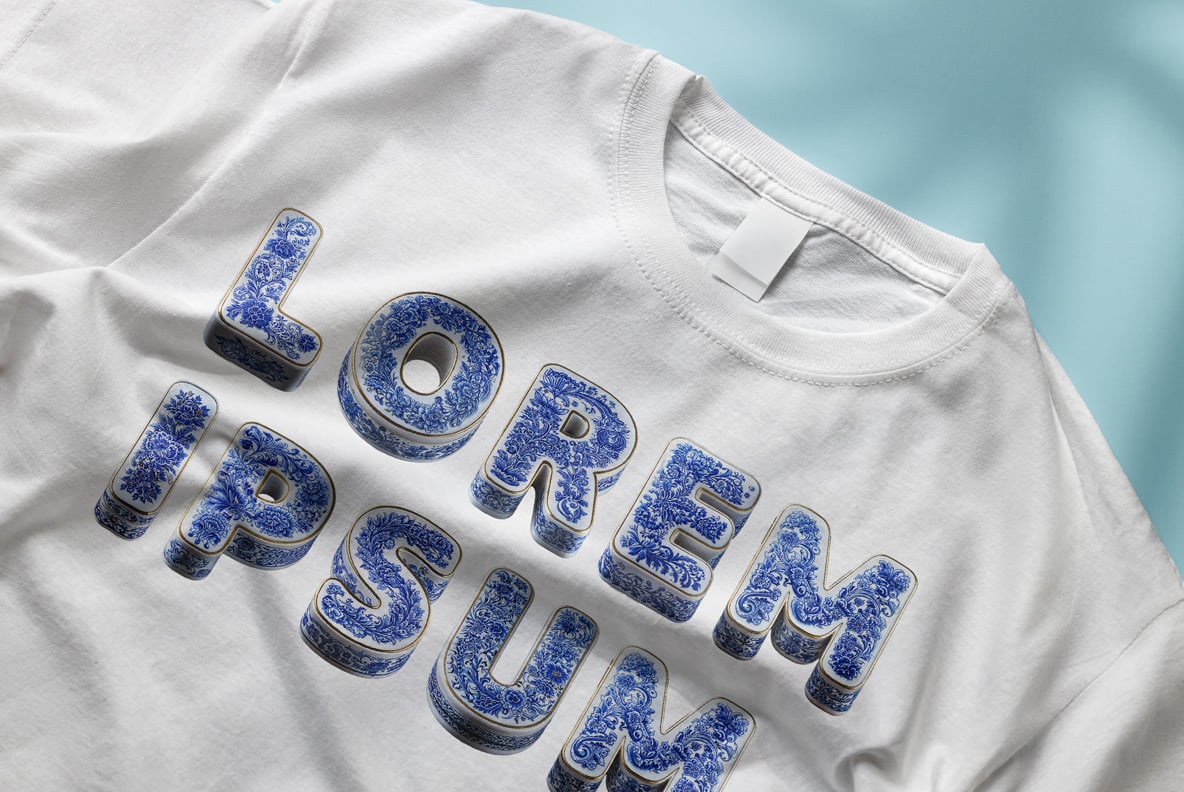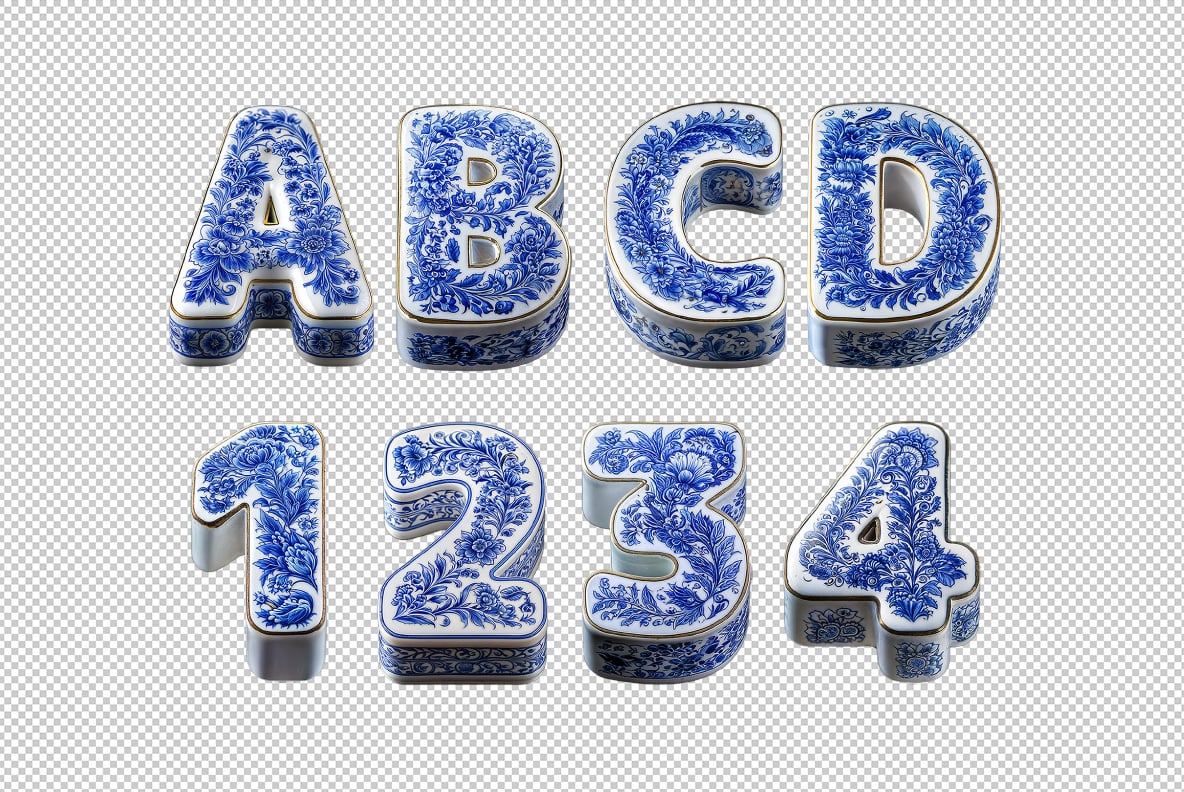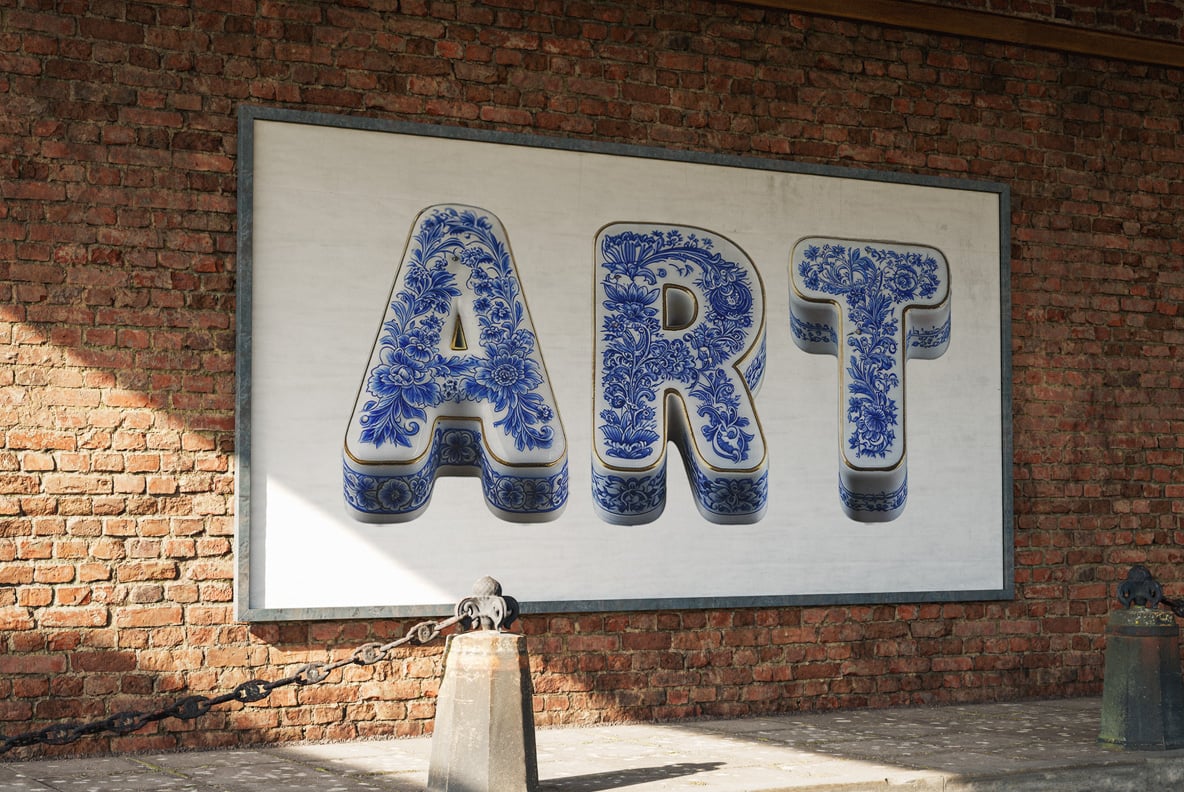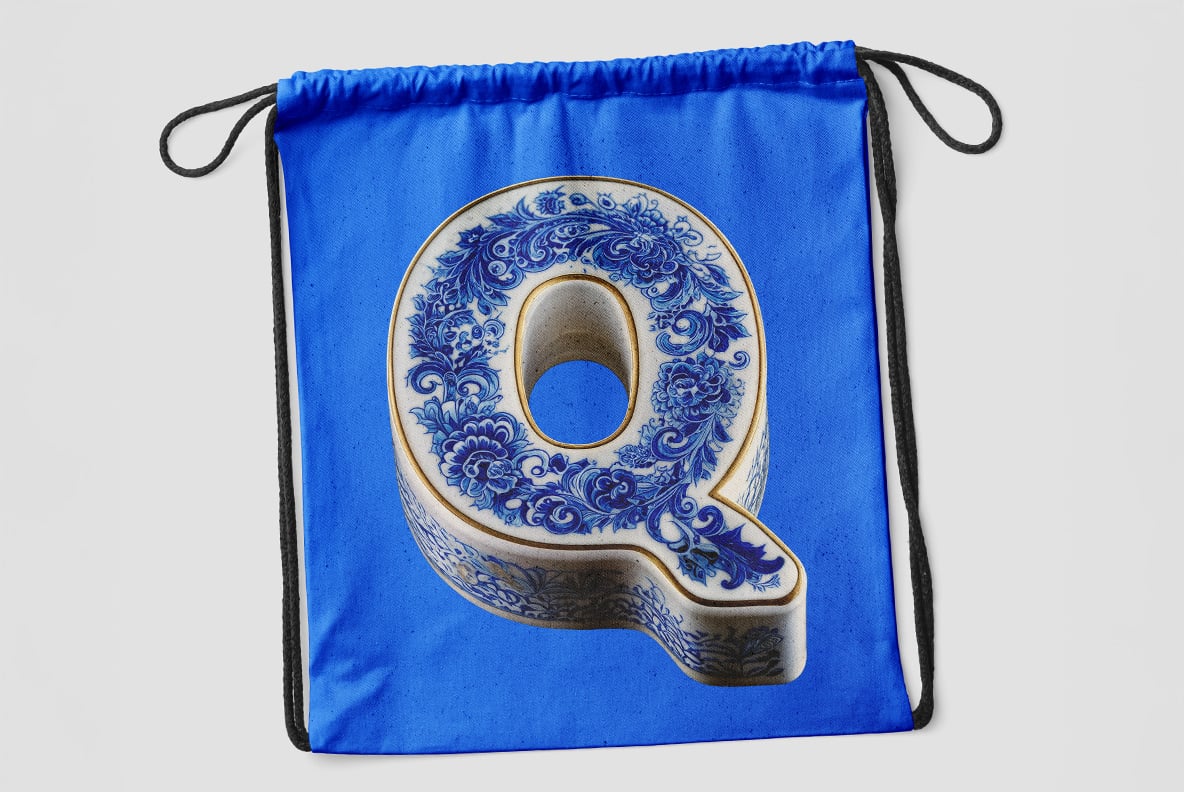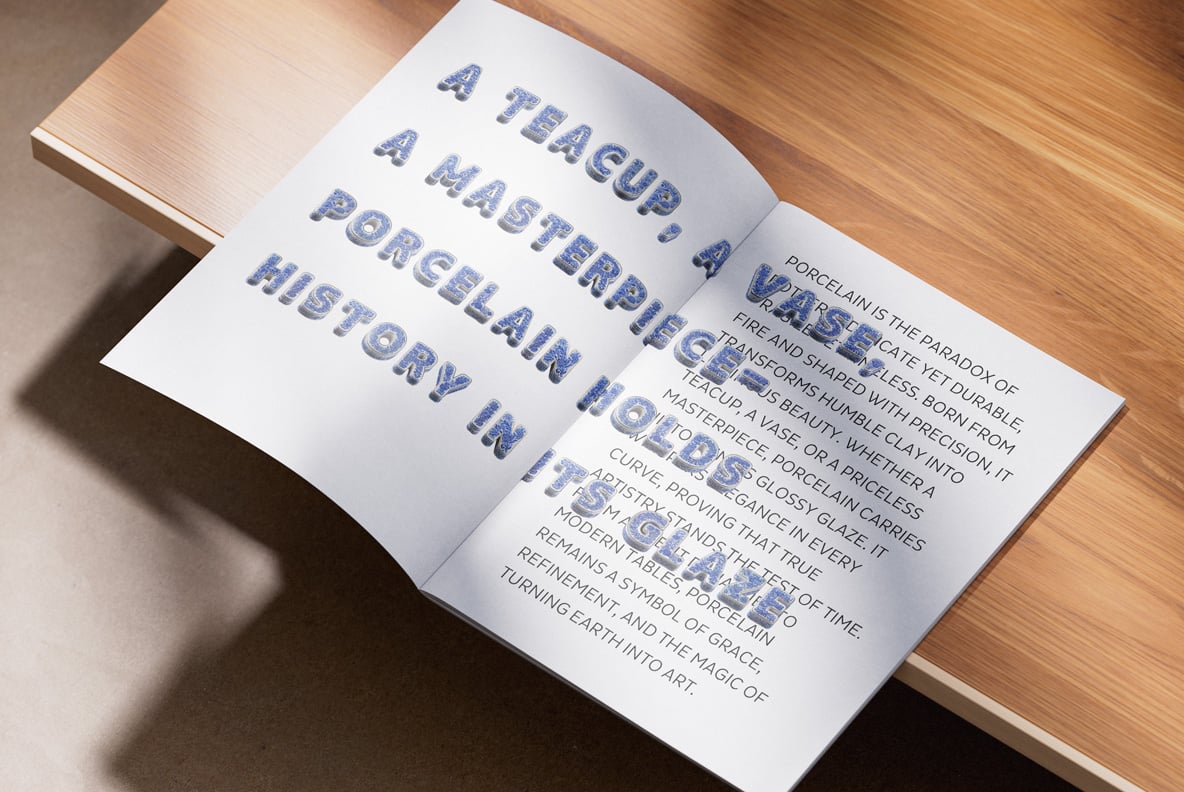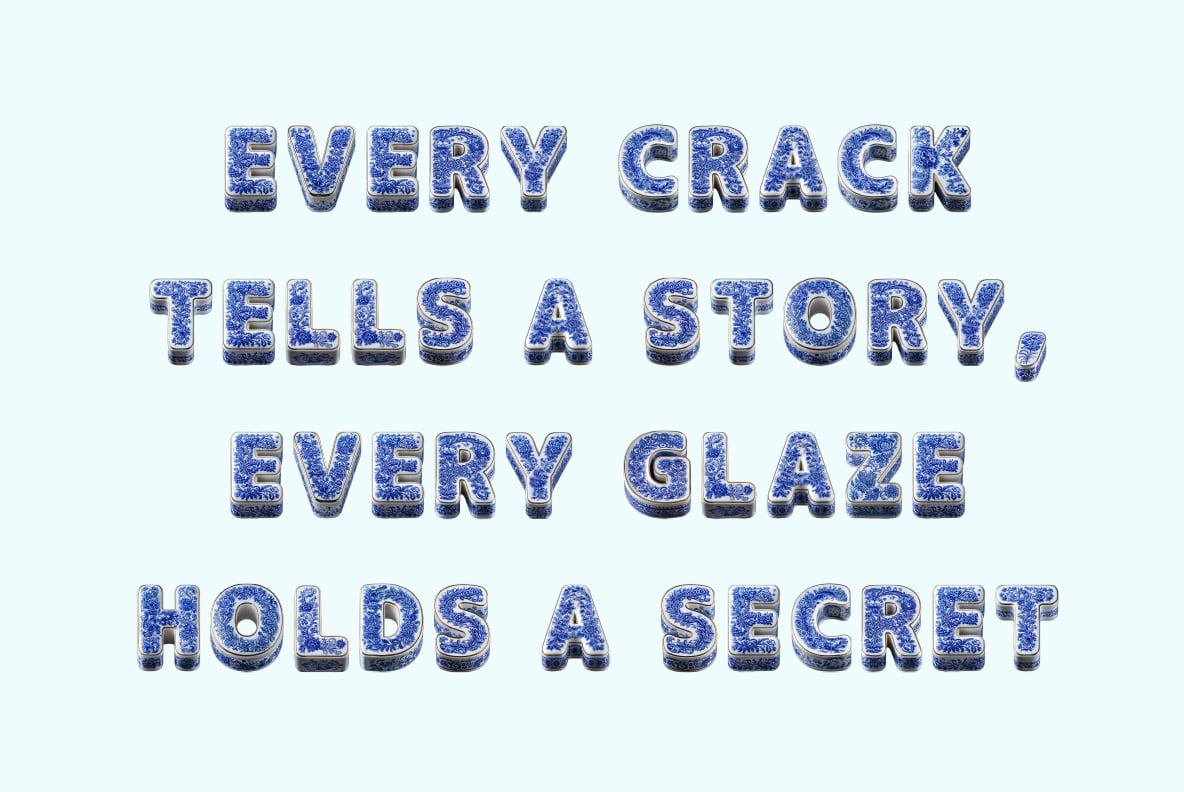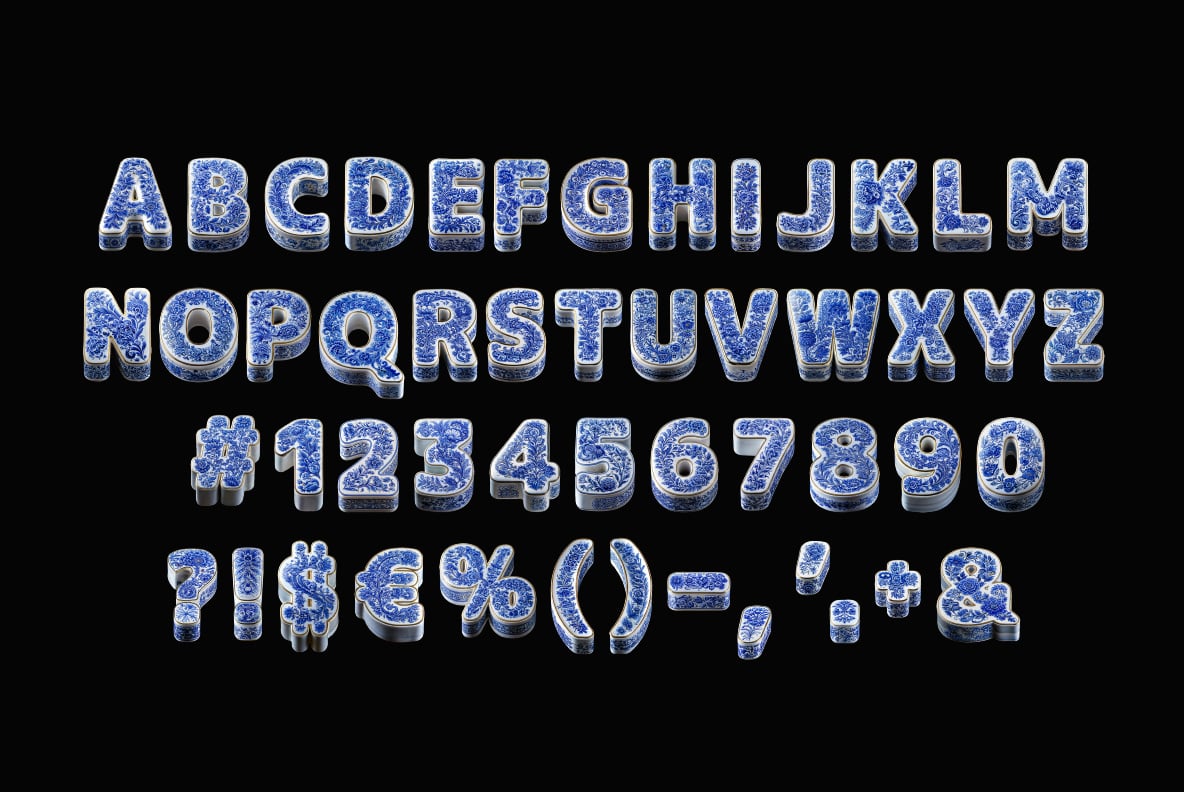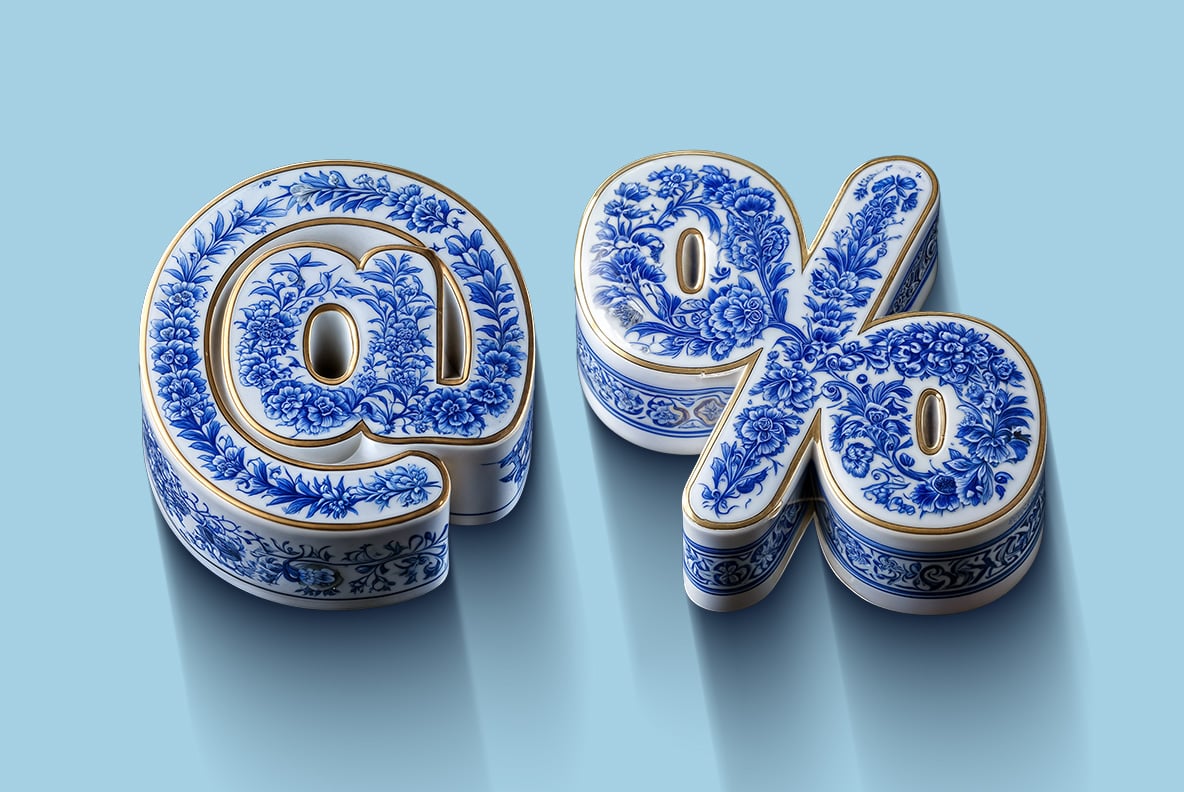
Porcelain Font
Floral, fabulous, and fancy—Porcelain Font is what happens when your grandma’s china set decides to learn the alphabet! Each letter is a masterpiece of porcelain-inspired typography, adorned with delicate blue floral patterns straight out of a vintage teacup. Think Delftware meets dictionary, with swirls of elegance and a whisper of tradition. The intricate porcelain lettering shimmers with golden trim, making every word feel like a royal decree. Whether you’re crafting an invitation or just showing off your love for all things ceramic, this decorative, classic font is here to make your text as timeless as a well-kept heirloom!